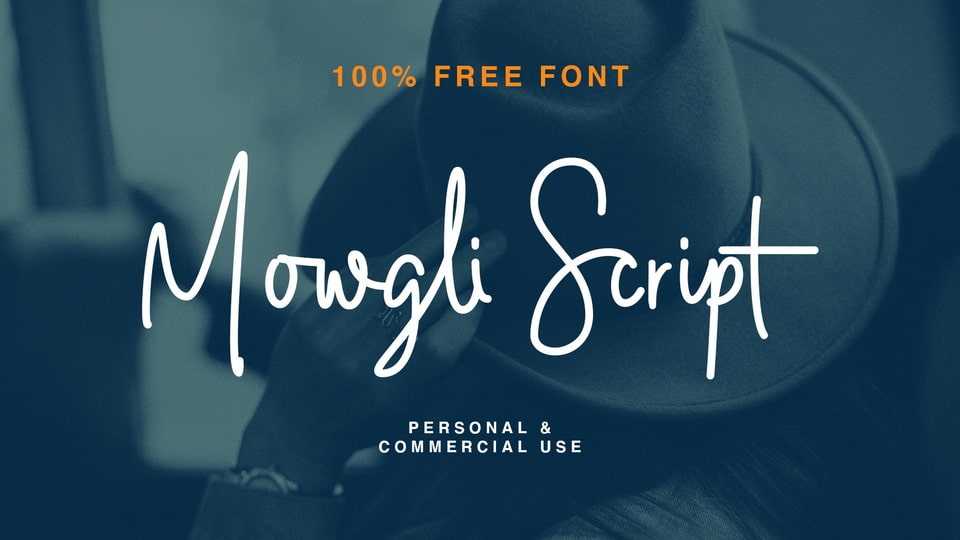
Download Mowgli font, a stylish and casual handwritten typeface. Dainty and joyful, Mowgli font will be ideal for writing wedding invitations, cards or any other design that may need a romantic, personalized touch.
Designer: Get Studio